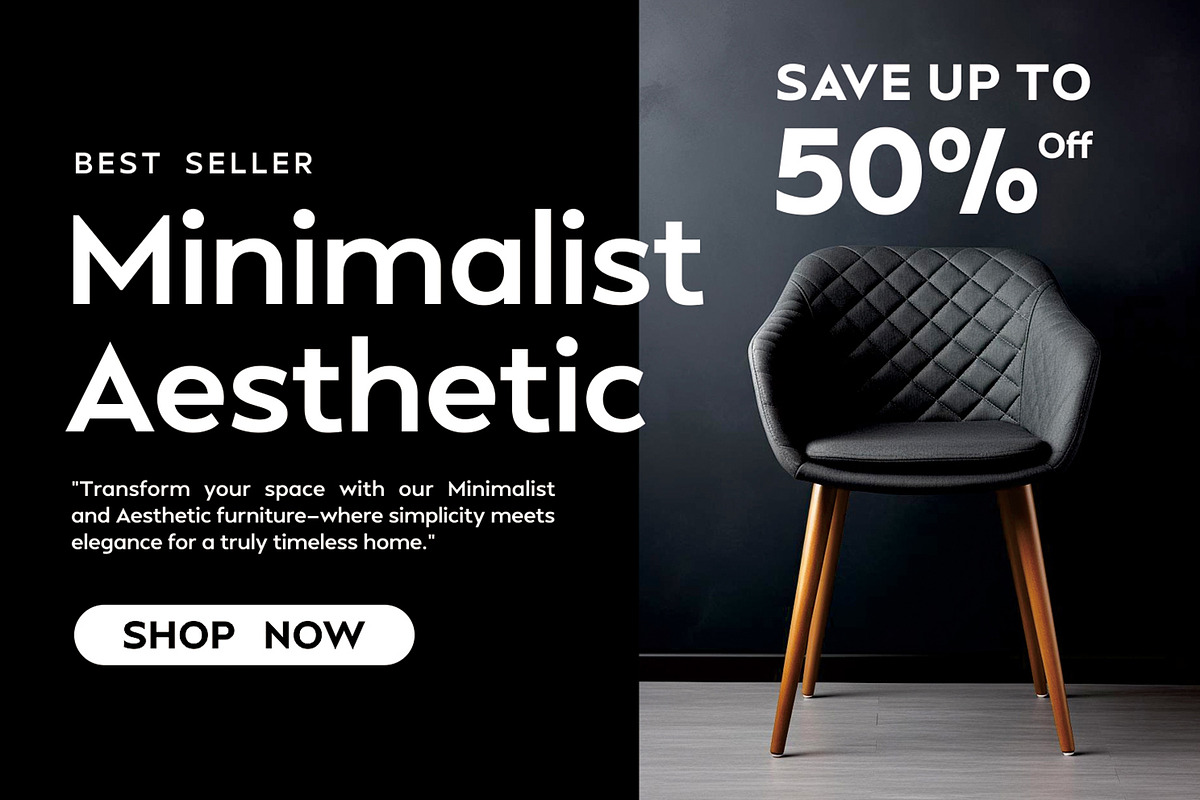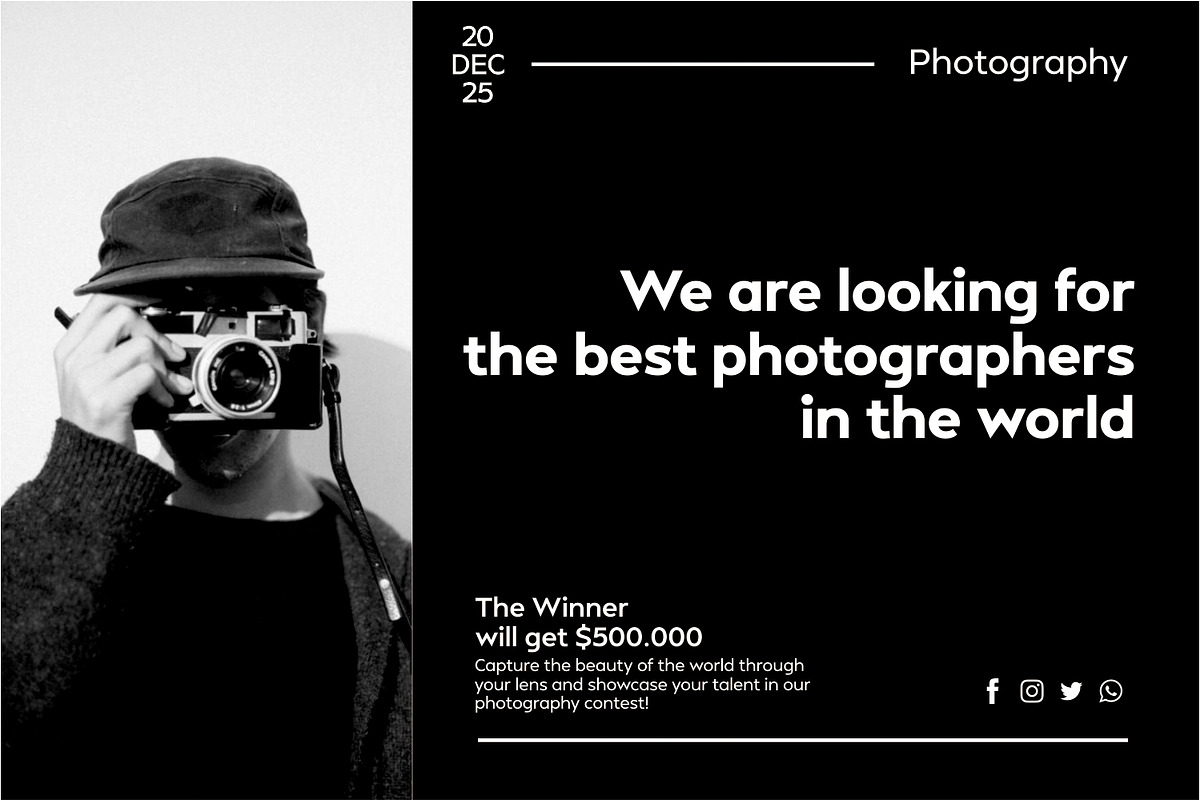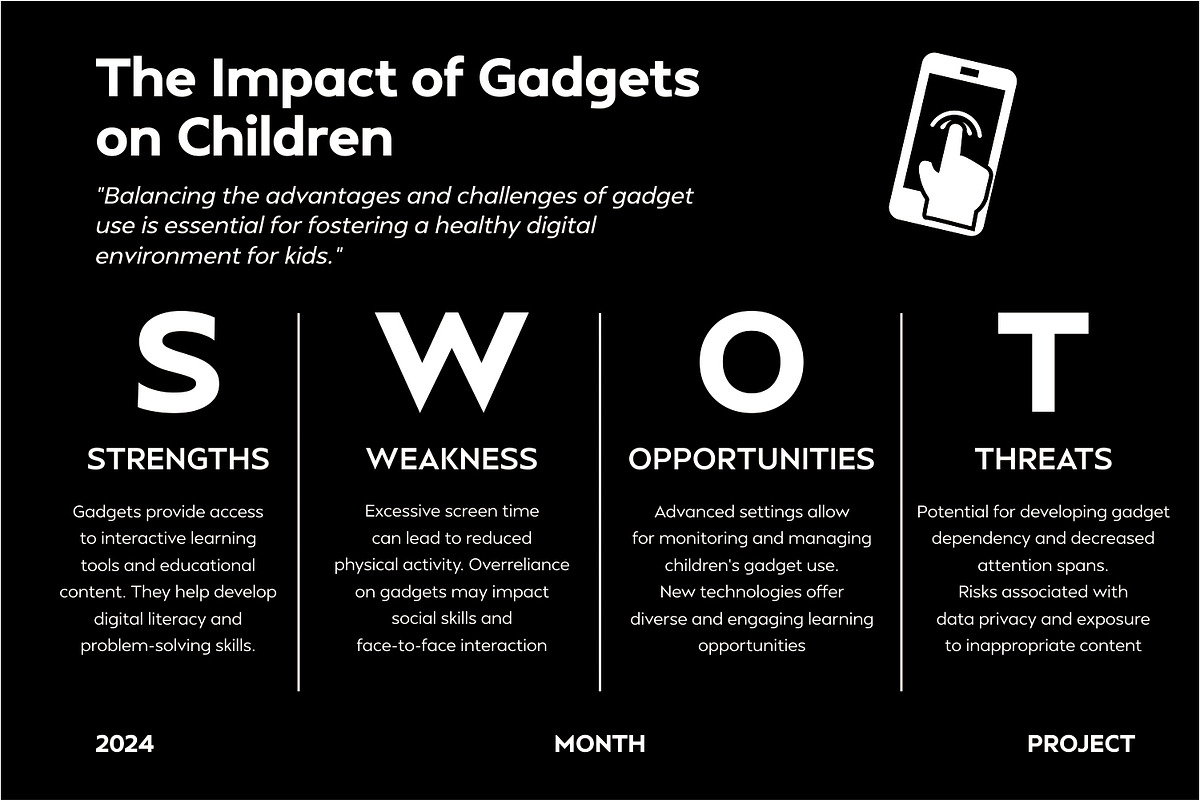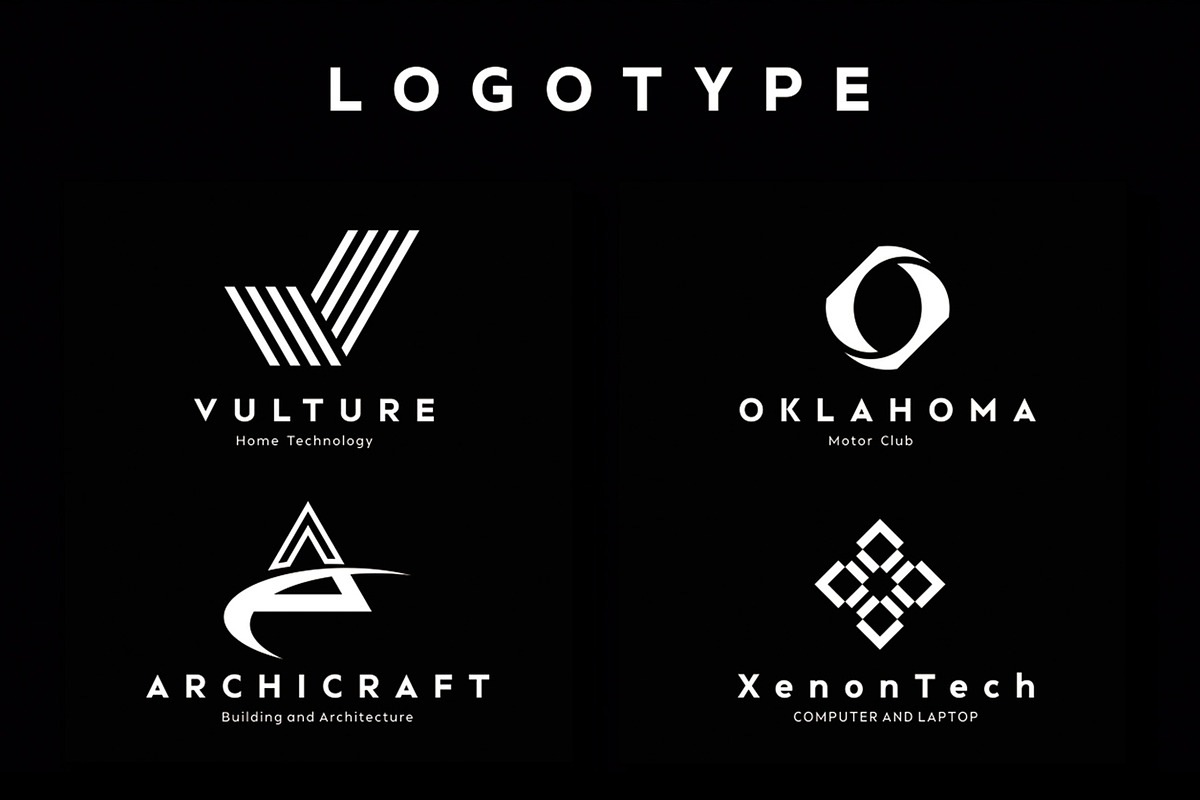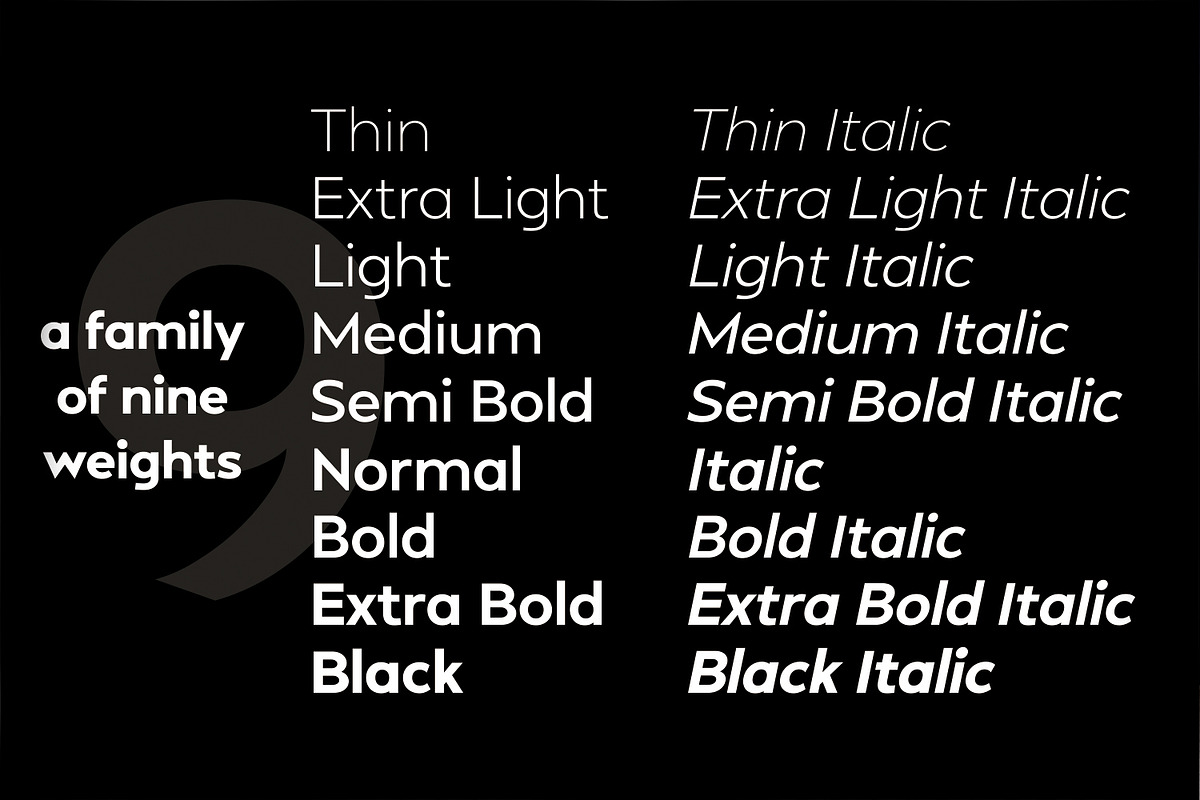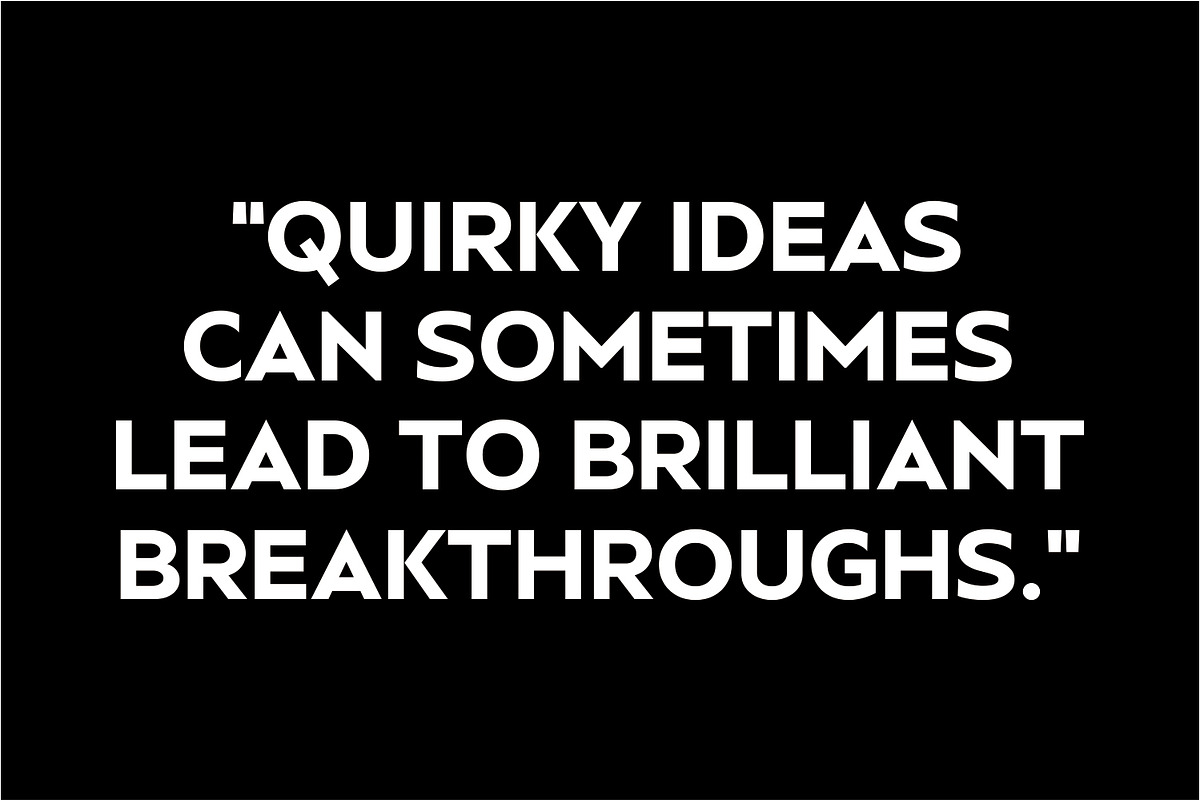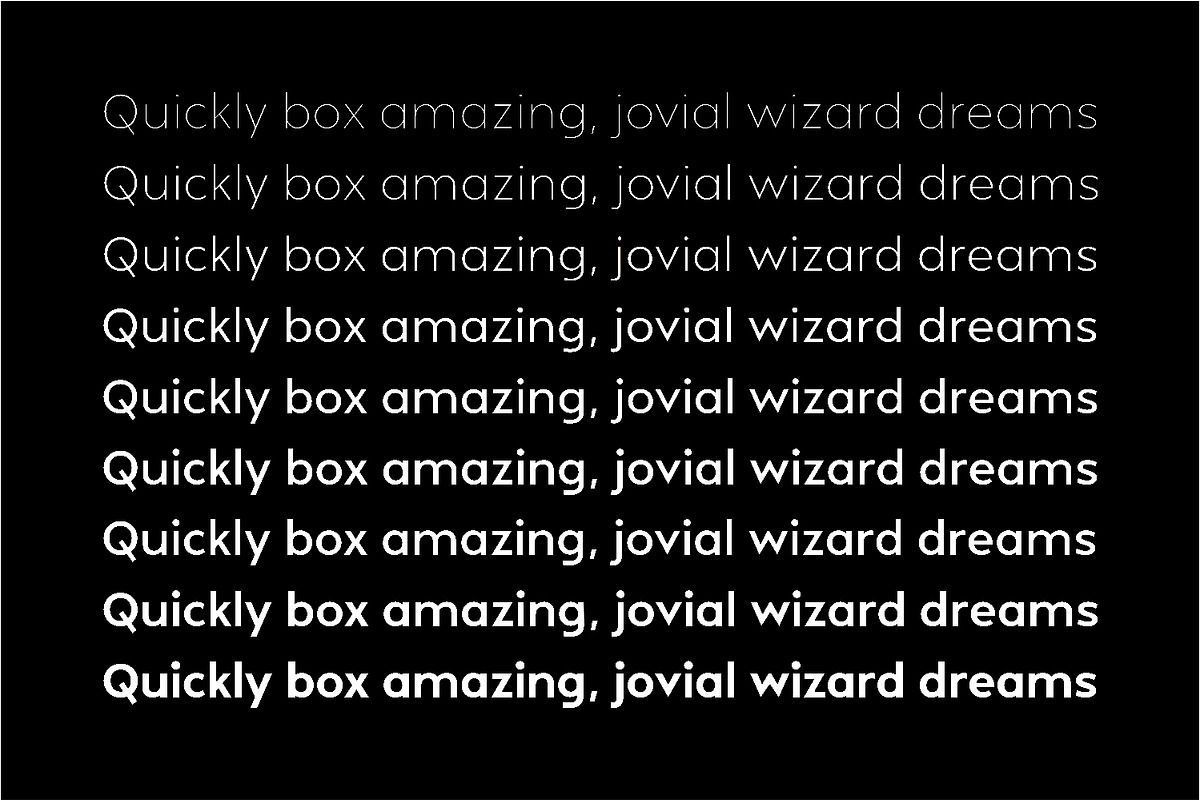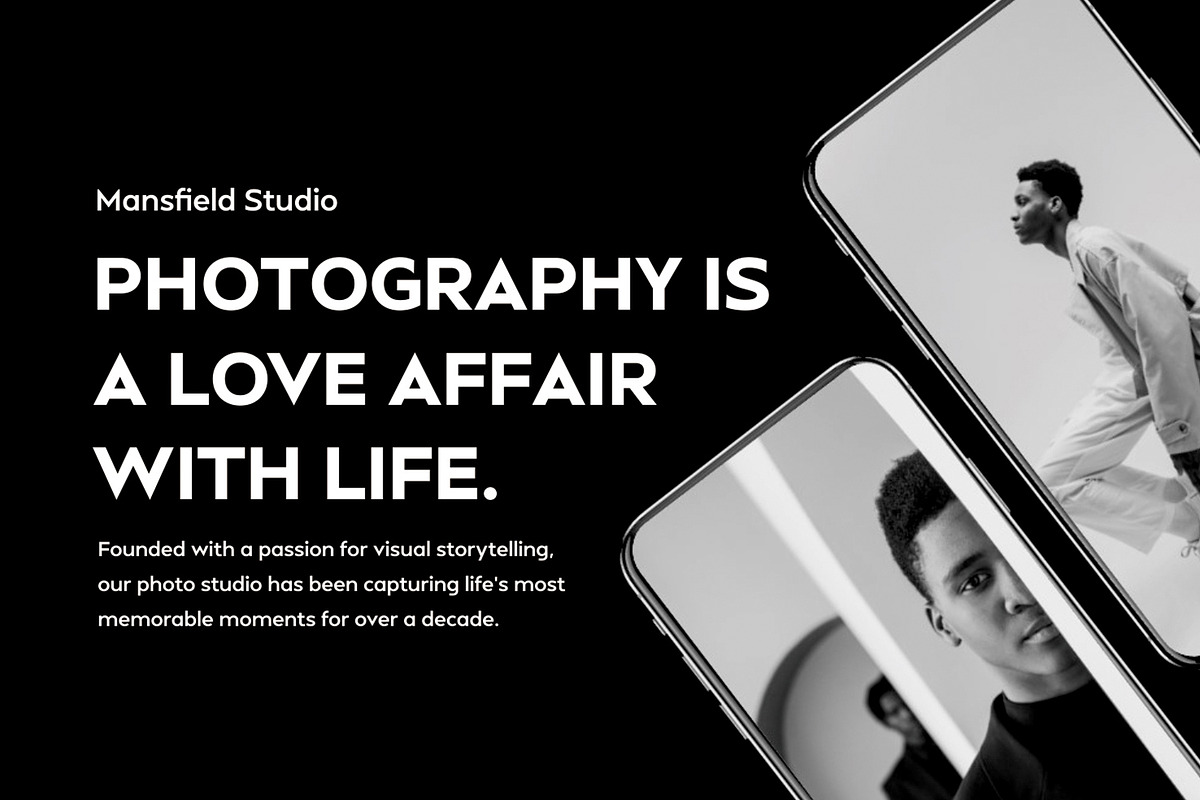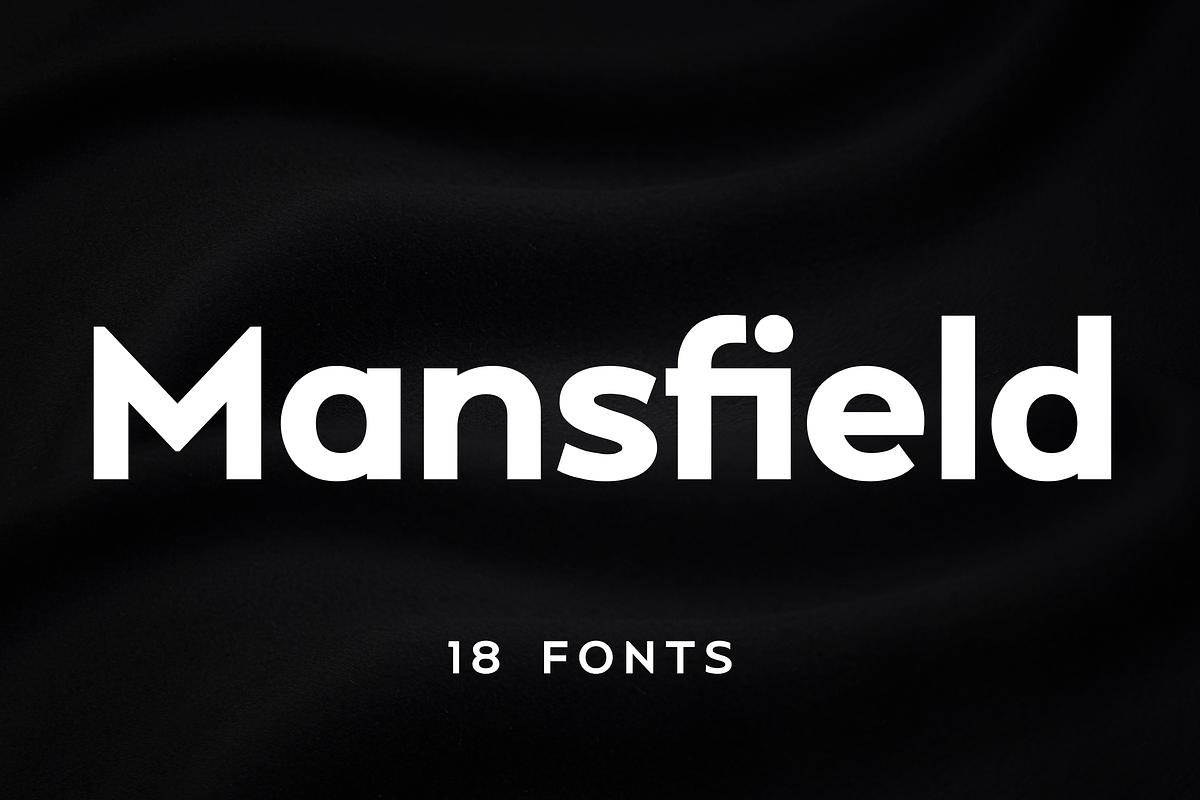
Mansfield - Geometric Sans Serif
Mansfield is a fresh and versatile geometric sans-serif font family inspired by the iconic typefaces of the 20th century, such as Futura and Avant Garde. With its geometric letterforms, sharp edges, and minimal stroke contrast, Mansfield embodies the clean and modern aesthetics of neo-grotesque fonts. Its tall x-height and precise design make it a perfect choice for various design projects, from branding to editorial work.
The Mansfield font family consists of 9 weights and 18 styles, offering a comprehensive range of options for any creative need. Its versatility and modern appeal make it ideal for use in magazines, posters, branding, websites, applications, banners, and other commercial projects. Whether you're designing for print or digital media, Mansfield provides the flexibility to achieve a polished and professional look.
Mansfield’s combination of versatility and modernity makes it a go-to choice for designers aiming to make a lasting impression. Whether you’re working on a logo, website, poster, or any other visual content, this font family offers the visual impact and adaptability you need to elevate your designs. Mansfield is a valuable asset for any creative professional, bringing a contemporary edge to every project.
With its timeless design and broad range of styles, Mansfield ensures that your work stands out in any context. Explore the possibilities with this geometric sans-serif font family and take your designs to the next level.